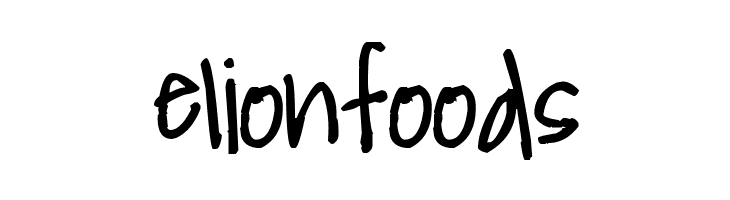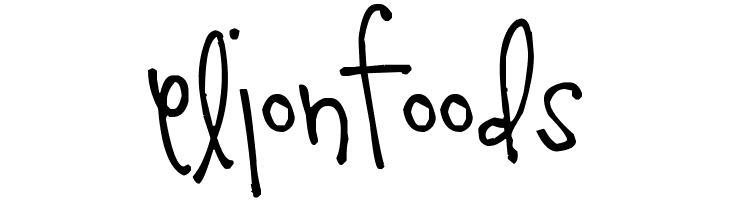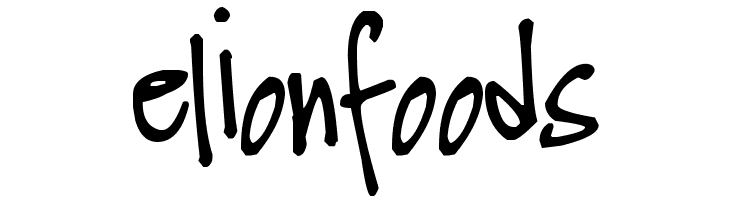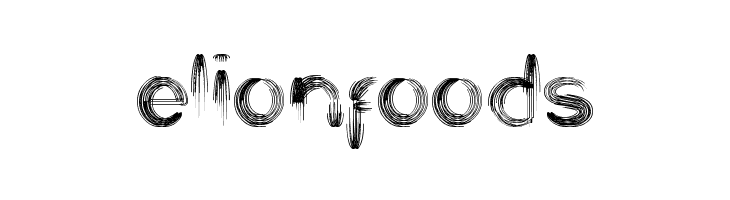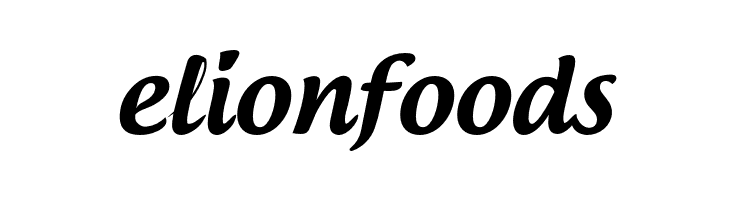
An elegant, flowing script font with intricate details and graceful curves.
A playful, handwritten font with bold, irregular strokes and a casual feel.
A playful set of decorative frames and shapes in bold silhouettes.
A playful handwritten font with a casual and friendly style.
A modern, clean sans-serif font with geometric shapes and uniform stroke width.
A playful handwritten font with irregular strokes and charming imperfections.
A whimsical, decorative font with playful curls and intricate details.
A modern, handwritten font with elegant, flowing strokes and dynamic contrast.
A bold, handwritten font with a dynamic and playful style.
A bold, dynamic font with a slight slant and smooth curves, ideal for impactful headlines.
An elegant script font with decorative swirls and flourishes.
An elegant script font with flowing cursive letters and intricate swashes.
A bold, geometric font with a modern and futuristic aesthetic.
A bold, handwritten-style font with a playful and expressive character.
A flowing script font with elegant loops and a sophisticated style.
A bold, modern font with rounded edges and uniform stroke width.
A decorative font with swirling, fluid-like patterns creating a dynamic and abstract appearance.
A bold, futuristic font with rounded edges and geometric structure.
A playful, bold font with textured, dotted interiors and rounded edges.
A playful, bold font with a whimsical, cartoon-like style and rounded edges.
A bold, modern font with uniform stroke thickness and clear readability.
A whimsical and decorative font with bold strokes and playful curls.
A bold, hand-drawn style font with a dynamic and energetic appearance.
A playful, rounded font with a friendly and whimsical style.
A bold, geometric font with a stencil-like design and strong industrial appeal.
A playful font with bold, rounded letters filled with cat and dog silhouettes.
A bold, angular font with a futuristic and abstract design.
A modern set of checkbox and radio button icons with bold outlines.
A bold, eclectic display font with a punk and retro vibe.
A bold, decorative font with ornate uppercase and strong lowercase letters.
A casual, handwritten font with smooth, flowing strokes and a dynamic appearance.
A bold, modern font with geometric influences and sharp angles.
A bold, dramatic font with exaggerated serifs and playful, whimsical characters.